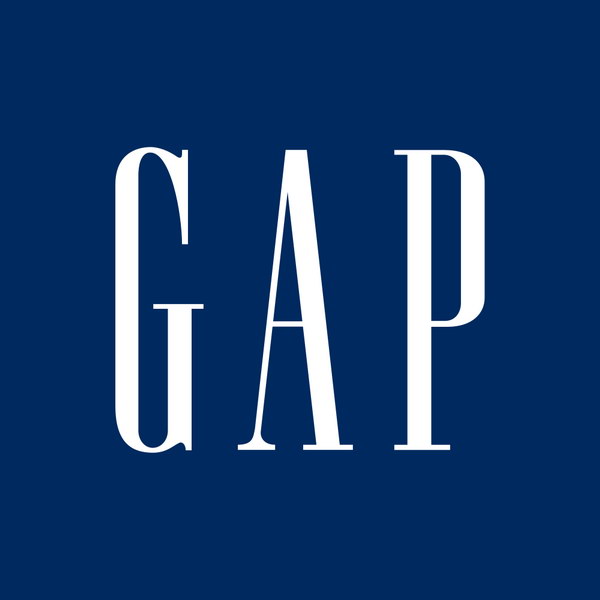
Gap Font
ApparelGap is an American clothing company that was founded in 1969. It is known for its casual, comfortable, and affordable clothing options for men, women, and children.
The Gap logotype features a condensed serif called Spire Regular designed by Ann Pomeroy. The font is a commercial one and you can view more details about it here.